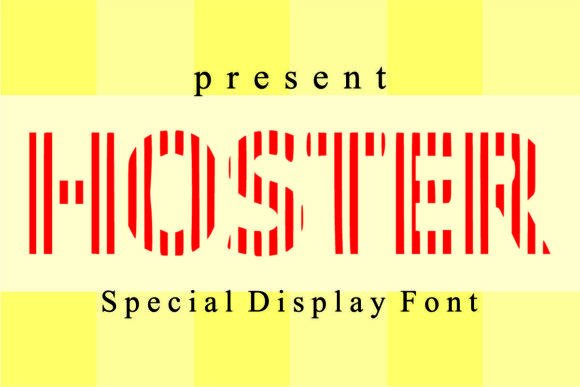
Strap yourself in and get ready to race through the world of typography with Hoster Font, the ultimate display font that embodies speed, power, and individuality. Crafted by the skilled hands of Im.design.art, Hoster is a symphony of straight lines and subtle quirks, designed to make your designs roar with personality.
Step into a world where words take on a life of their own, where every letter is a sleek race car poised to ignite your imagination. Hoster Font is not just a collection of characters; it's a gateway to a realm where your words will leave an unforgettable mark.
Unleash the adrenaline in your designs with Hoster Font, the perfect choice for injecting a surge of excitement into racing-themed creations, t-shirt designs that demand attention, posters that command a second glance, and book covers that evoke a sense of adventure.
But Hoster Font's power extends far beyond the racetrack. Its versatility makes it a champion in any arena, effortlessly adapting to a myriad of design challenges. Whether you're crafting eye-catching headlines, captivating social media posts, or simply adding a touch of flair to your everyday documents, Hoster Font will elevate your words to new heights of style and impact.
Immerse yourself in a world of boundless creativity with Hoster Font. Its unique blend of sleek lines and playful quirks will empower you to create designs that resonate with your audience, leaving an indelible mark on their minds.
Embrace the power of Hoster Font today and let your words ignite the world with their unstoppable force and undeniable charm.